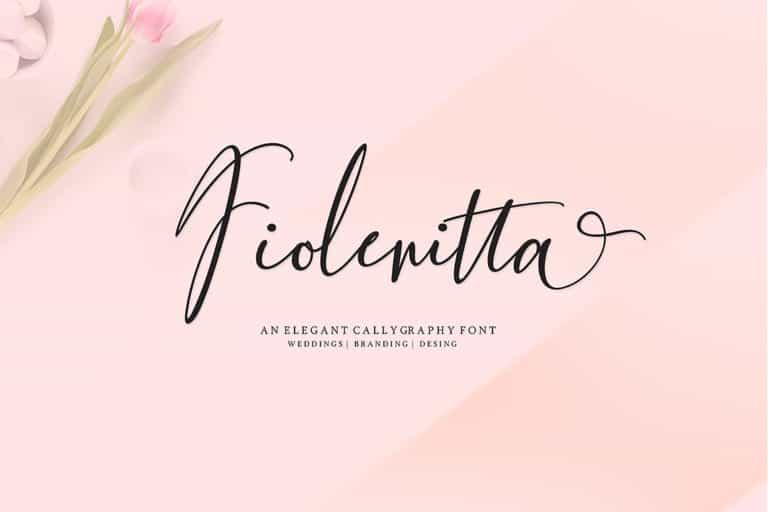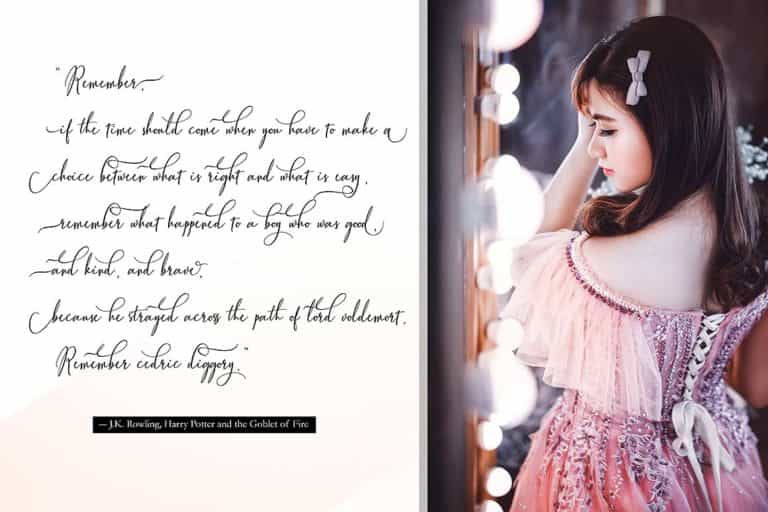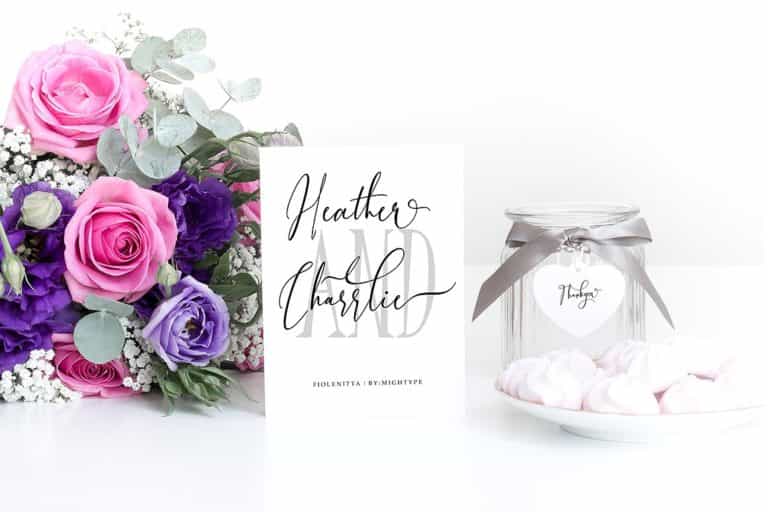
Discover Fiolenitta Script Font, part of the Calligraphy Handwritten collection—a versatile and unique font perfect for adding a personal touch to your projects. Download it for free and enjoy crafting designs with style, from invitations to social media posts. This font is available exclusively for personal use, giving you the freedom to create without limits. Unlock your creativity with Fiolenitta Script Font today!
Introducing Fiolenitta Font. Fiolenitta is a typeface with the handwriting style of our time. This font is ideal for branding, wedding invites, magazines, mugs, business cards, quotes posters and more. You can try it out first if you want to buy this font.